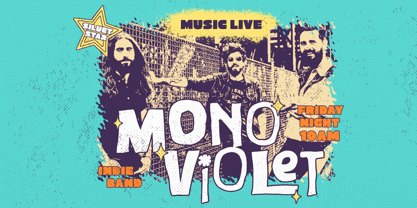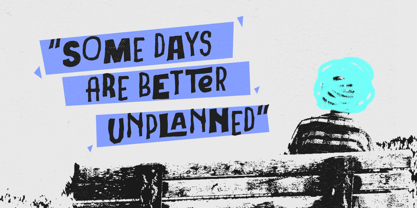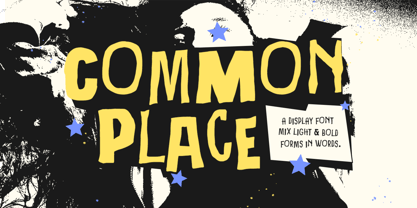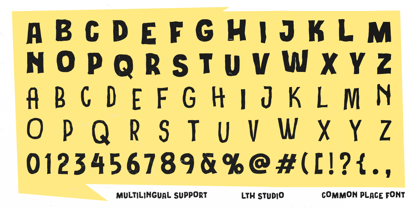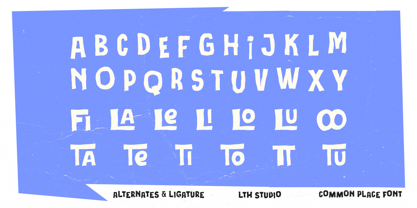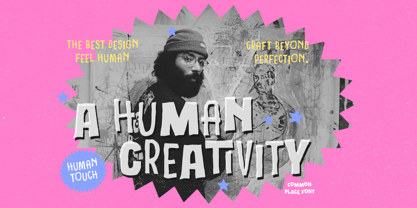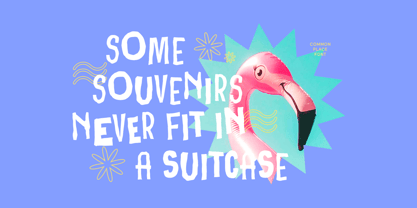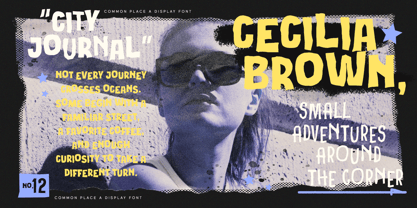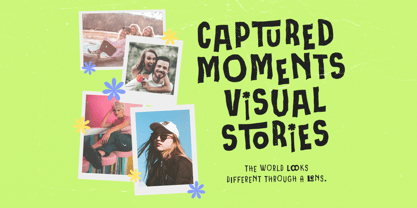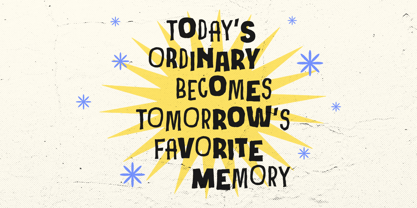
Common Place
Die Schriftfamilie Common Place wurde von Hendry Juanda entworfen und von Letterhend veröffentlicht. Common Place enthält 1 Stile. Mehr über diese Familie
Common Place captures the raw energy of handmade collage, where mismatched letters, uneven shapes, and playful imperfections come together with effortless confidence. Inspired by DIY zines, ransom note lettering, indie gig posters, and cut-paper compositions, every word feels spontaneous, expressive, and full of personality.
Features :
• Uppercase & lowercase
• Numbers and punctuation
• Alternates & Ligatures
• Multilingual Support